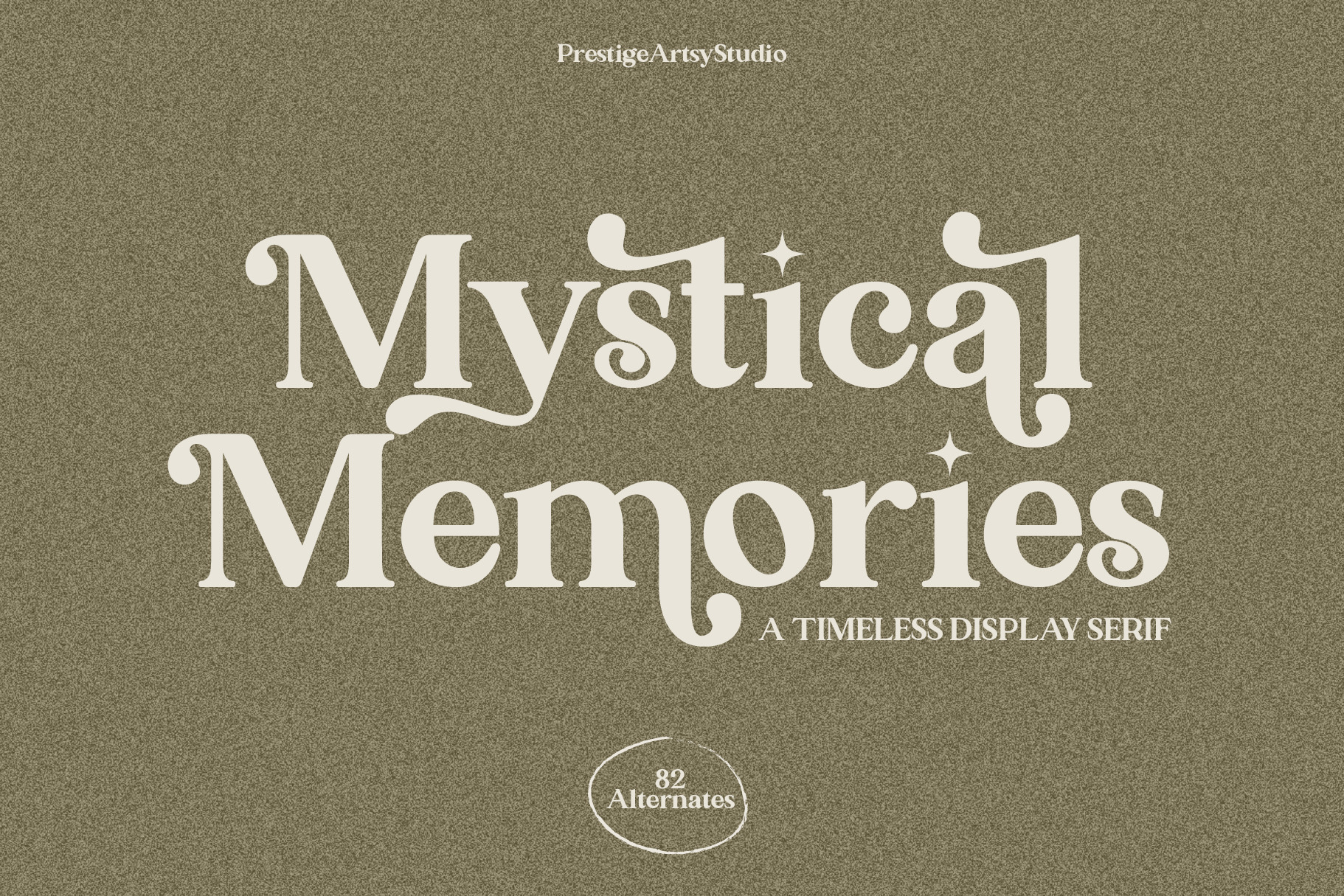
Mystical Memories Regular
Mystical Memories is a serif font family published by Prestige Artsy Studio.
Honoured to introduce Mystical Memories — a luxury timeless serif font.
Make your work stand-out from the crowd with Mystical Memories’ chic and elegant 82 Stylistic Alternates and 19 ligatures. that can be accessed automatically when using Open Type features.
Mystical Memories was designed specifically for bold projects in mind — perfect for creating headlines, word mark logos, monograms, quotes, product packaging, invitations, magazines and more…